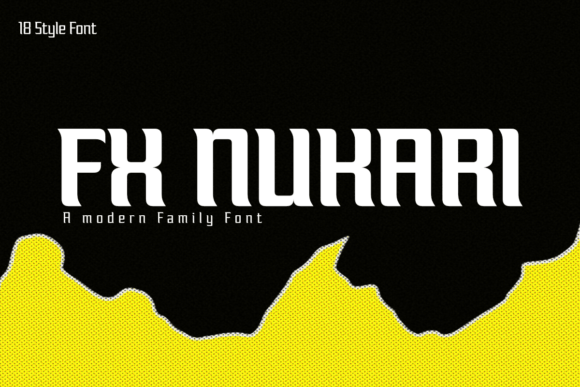
Discover the Unparalleled Versatility of Fx Nukari Font
Have you ever stared at a blank page, struggling to find the perfect words to convey your creative vision? You know the feeling – it’s like trying to find the missing piece of a puzzle. But what if you had the perfect tool to unlock your design potential? Enter Fx Nukari Font, an innovative displaying font lineage that will revolutionize the way you craft your designs.
This extraordinary font features an extensive palette of 18 styles, offering abundant versatility and diversity for your designs. Whether you’re crafting crystal clear documents, creating captivating news headlines, or designing remarkable logo signatures, Fx Nukari Font is the perfect choice. Its unique brilliance will transform and elevate your design narratives, making it an invaluable addition to any designer’s font repertoire.
- Unique Characteristics: Distinctive, futuristic design with a blend of geometric and organic elements
Designer Review: Fx Nukari Font
Overall, I think Fx Nukari is an interesting font, but it has its strengths and weaknesses. Let’s dive into the good and the not-so-good.
- Unique aesthetic: Fx Nukari has a distinctive, futuristic feel that could add some much-needed flair to a design.
- Good legibility: Despite its bold, geometric shape, Fx Nukari is surprisingly easy to read, making it a solid choice for body text.
- High contrast: The font’s bold lines and sharp angles create a lot of contrast, which can be great for making text stand out on a page or screen.
- Overly bold: At times, Fx Nukari can feel a bit too bold, overwhelming the surrounding design and making it hard to read.
- Limited versatility: While the font works well for futuristic or sci-fi designs, it may not be the best choice for more traditional or conservative projects.
Overall, I think Fx Nukari is a solid choice for designers who want to add a bit of futurism to their work. However, it may not be the best fit for every project, and some users may find it too bold or overwhelming.
Fx Nukari Font is perfect for:
Headings and titles.
Body text with a touch of elegance.
Designing logos and branding materials.